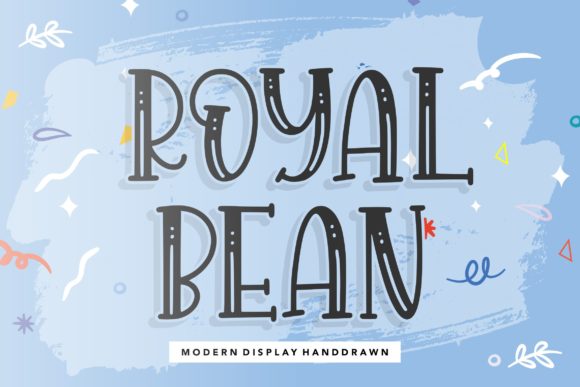
Introducing Royal Bean Font, the ultimate choice for creative individuals seeking the perfect blend of modernity and friendliness in their projects. Created by the talented Balpirick, this remarkable display font is here to elevate your design game and captivate your audience with its enchanting appeal.
With Royal Bean Font, your artistic endeavors will reach new heights, leaving a lasting impression on anyone who lays eyes on your work. Its sleek and contemporary design is infused with a touch of warmth, making it ideal for various projects that require a touch of personality and charm.
Whether you're a graphic designer, a social media enthusiast, or an aspiring artist, Royal Bean Font promises to be your ultimate companion. Its versatility knows no bounds, effortlessly adapting to any project or theme you have in mind. From logo designs to website headers, product packaging to social media posts, this font will breathe life into your creations, making them truly unforgettable.
Express your creativity and let Royal Bean Font be the voice of your brand. Its captivating curves and unique letterforms will effortlessly draw attention, leaving a powerful impact on your target audience. Stand out from the crowd and make a statement with this font that oozes sophistication and style.
But it's not just about aesthetics – Royal Bean Font is also a powerhouse when it comes to functionality. Its impeccable legibility ensures that your message is delivered crystal clear, while its extensive character set allows you to explore endless design possibilities. Don't be limited by conventional fonts; let Royal Bean Font unleash your imagination and set your creativity free.
Immerse yourself in the world of Royal Bean Font and witness how it transforms your projects into masterpieces. Its emotional allure will evoke a sense of joy, excitement, and wonder, creating an instant connection with your audience. Let your designs speak volumes and leave a lasting impression that lingers in the hearts and minds of those who encounter them.